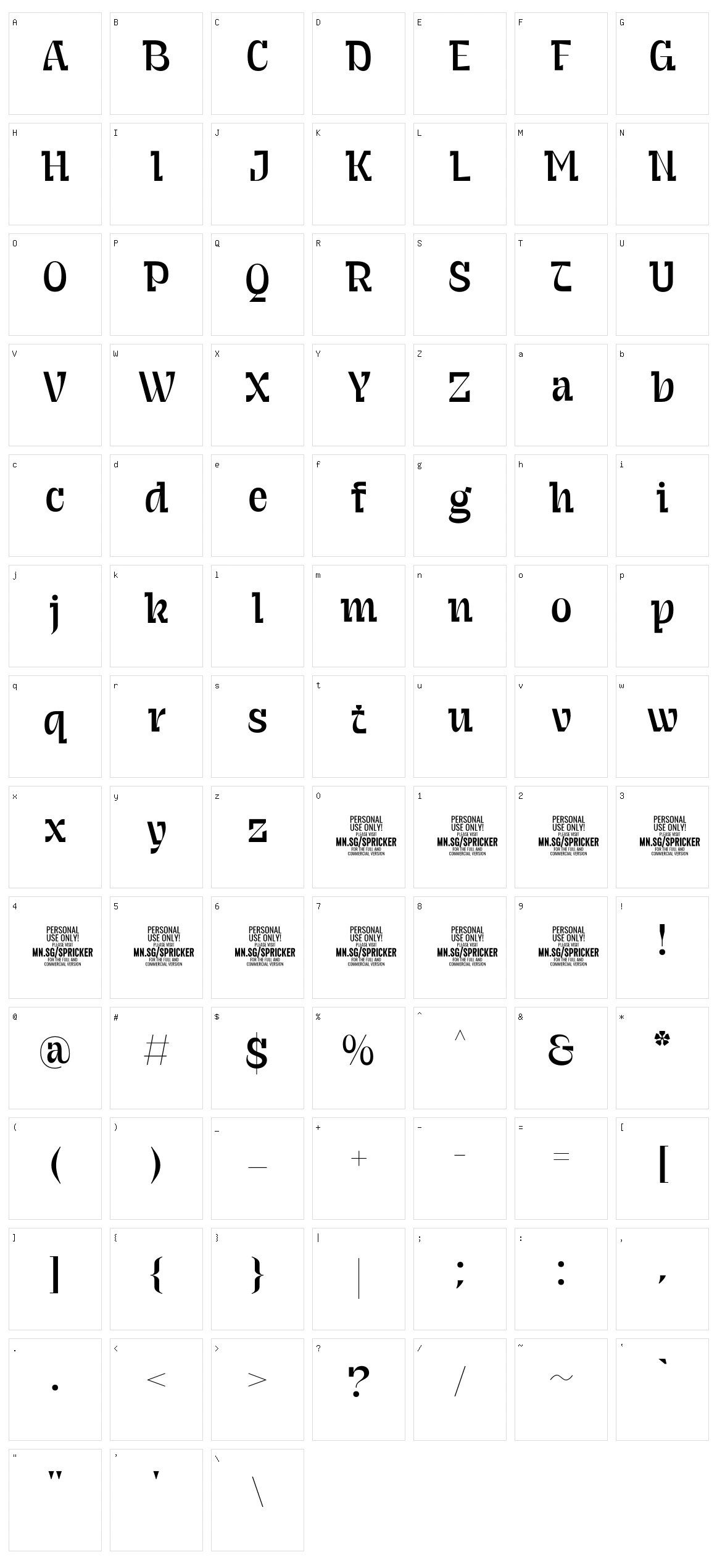
Spricker is where contemporary design meets typographical precision.
With slab serifs anchoring its design, this typeface achieves a striking balance between robust weight and delicate hairline thin strokes. Every character is a study in contrast, yet the ensemble delivers undeniable legibility. Its unique letterforms bring a fresh flair to the classic structure, making Spricker a standout choice for modern designs. Far from being just another typeface in the crowd, it shines as a technological marvel, seamlessly marrying innovation with function.
The font is built with advanced OpenType functionality and has a guaranteed top-notch quality, containing stylistic and contextual alternates, ligatures, and more features; all to give you full control and customizability. It has extensive lingual support, covering all Latin-based languages, from Northern Europe to South Africa, from America to South-East Asia. It contains all characters and symbols you'll ever need, including all punctuation and numbers.
Behind Spricker's genius is the artistry of Mans Greback. Recognized for his technologically qualitative typography, Greback showcases his expertise. With Spricker, he offers designers a tool that's both visually captivating and functionally impeccable, ensuring every word not only looks impeccable but also reads flawlessly.